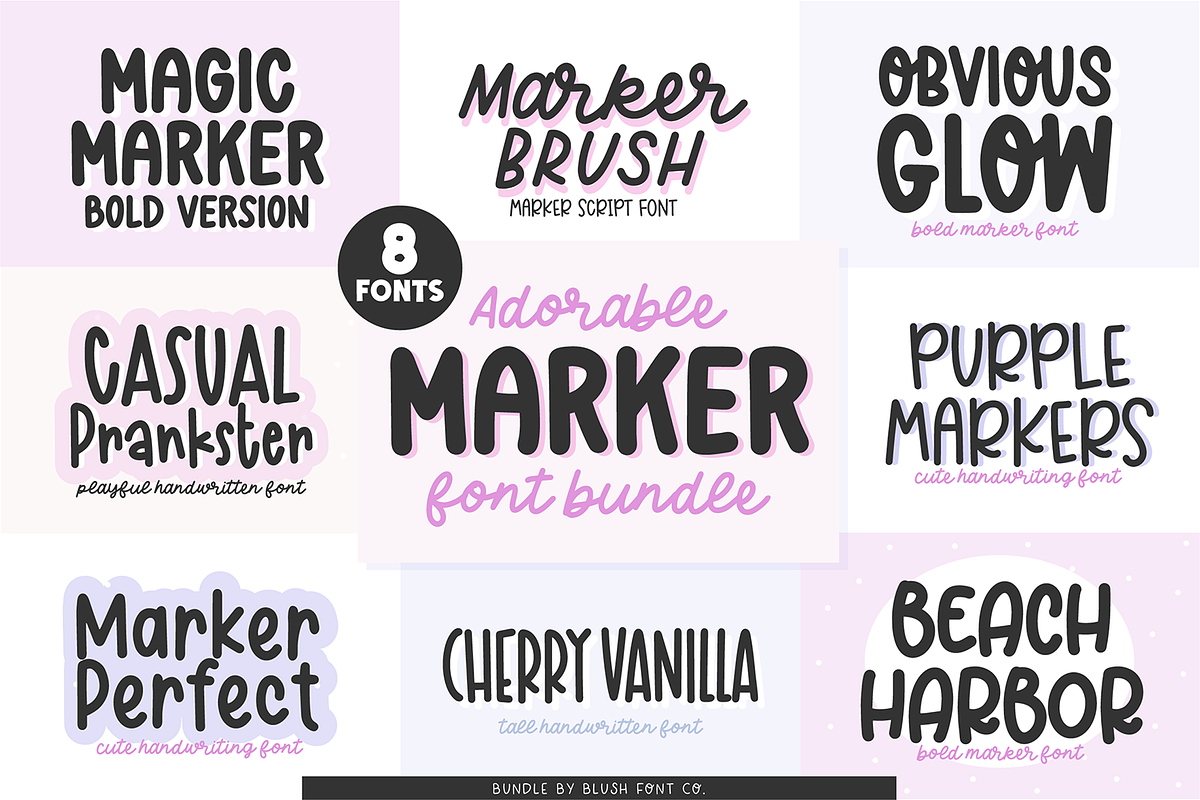
MARKER HANDWRITING Font Bundle Free Download is a dynamic and expressive collection of marker-style handwritten fonts that bring raw energy and authenticity to your designs. With bold strokes and casual vibes, the MARKER HANDWRITING Font Bundle is perfect for posters, streetwear branding, social media graphics, YouTube thumbnails, and edgy product packaging.
Each font in the MARKER HANDWRITING Font Bundle Free Download mimics the look of real marker pens—from thick and grungy to clean and bold—giving you a range of styles for loud, attention-grabbing visuals. Whether you're crafting event flyers or branding content for a youthful audience, this bundle adds a spontaneous, handcrafted edge.